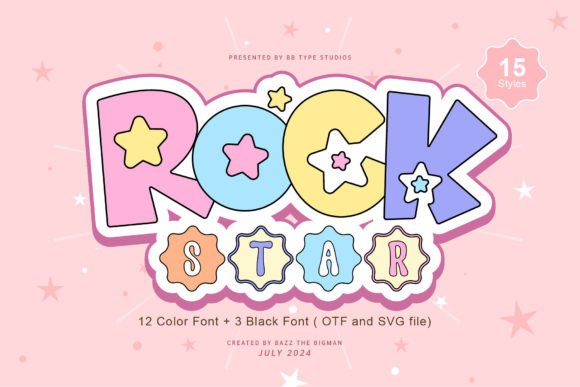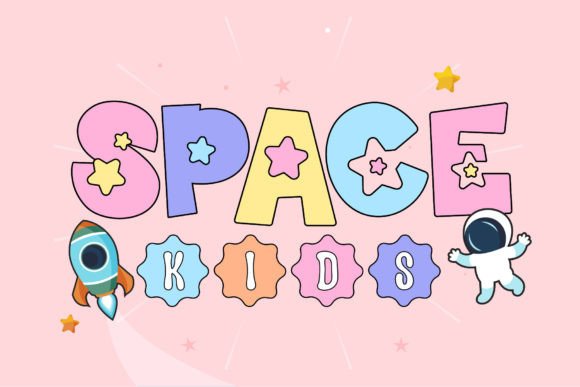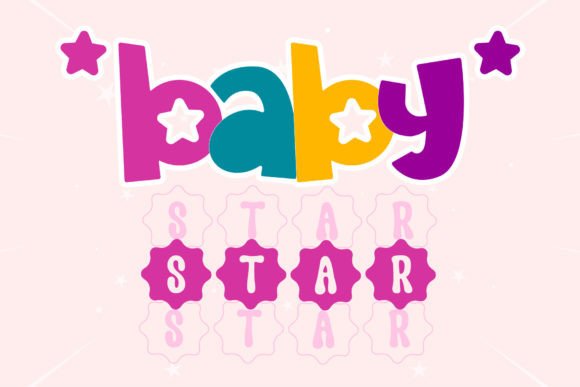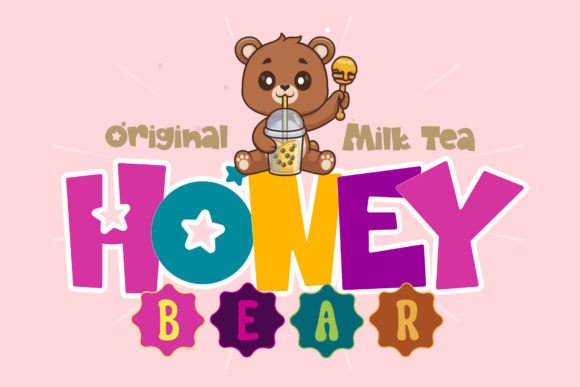
Rock Star Font: A Playful Decorative Font for Kids’ Designs
About the Rock Star Font
Elevate your designs with Rock Star Font, a font that combines sophistication with readability. Meet Rock Star, your new favorite decorative font, brimming with celestial charm. Perfect for creating standout designs, this star-themed font brings a playful yet friendly vibe to any project. Ideal for crafting original book covers, whimsical birthday cards, and heartwarming greeting cards, Rock Star font guarantees to add a unique touch that is as fascinating as the cosmos. Imbue your creative endeavors with a dose of stardust flair through the Rock Star font.
Rock Star’s playful energy makes it ideal for headlines, short text blocks on posters, and branding elements where a fun, approachable feel is desired. It shines in projects targeting younger demographics or brands with a whimsical personality. However, its decorative nature makes it less suitable for body text or UI elements requiring high readability. Avoid using it for lengthy paragraphs or situations demanding clear legibility at small sizes.
Pairing Rock Star with a clean sans-serif like Open Sans for body copy creates a strong contrast, balancing its playful energy with a sense of order. Alternatively, a classic serif font such as Garamond adds a touch of sophistication, providing visual weight and grounding the design. For a more unified, slightly bolder look, consider pairing it with a geometric sans-serif such as Montserrat.
The font’s overall personality is undeniably friendly and bold, yet retains a whimsical charm. It’s perfect for projects aiming for a lighthearted, memorable impact.